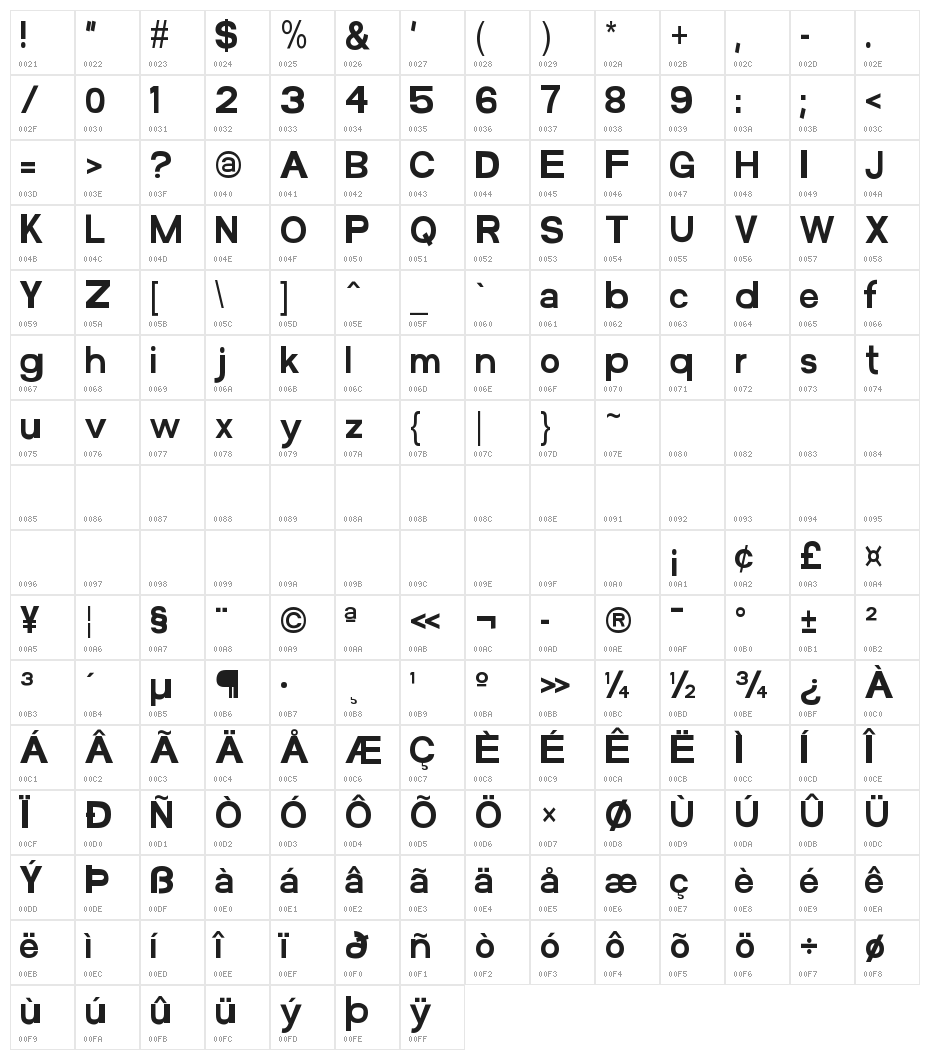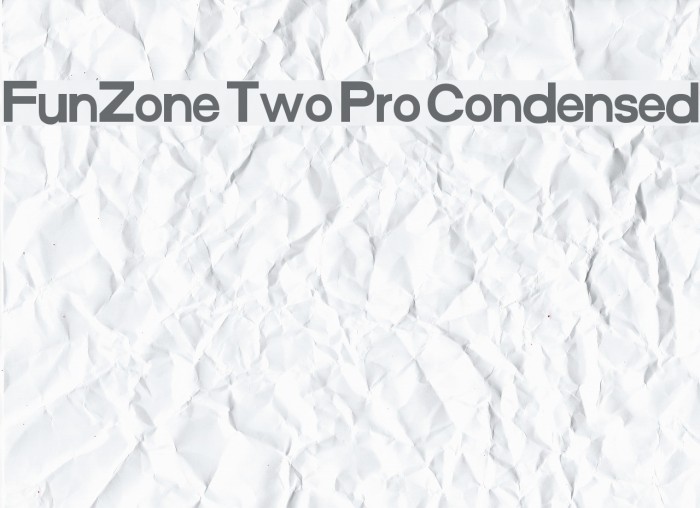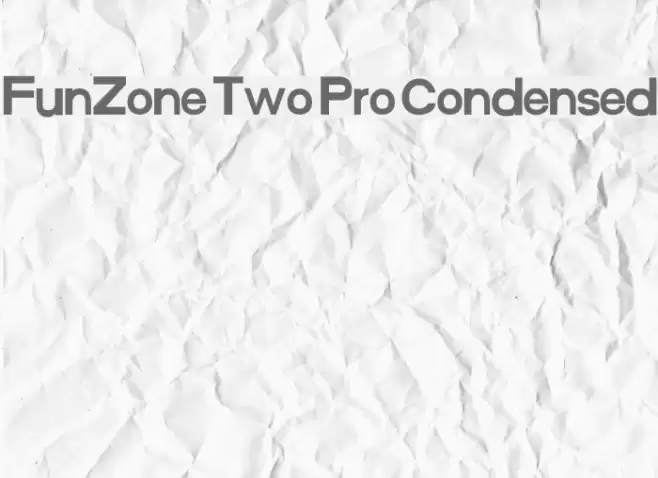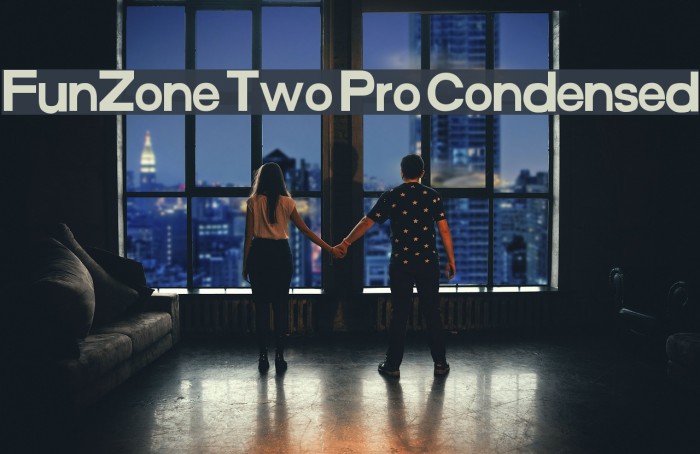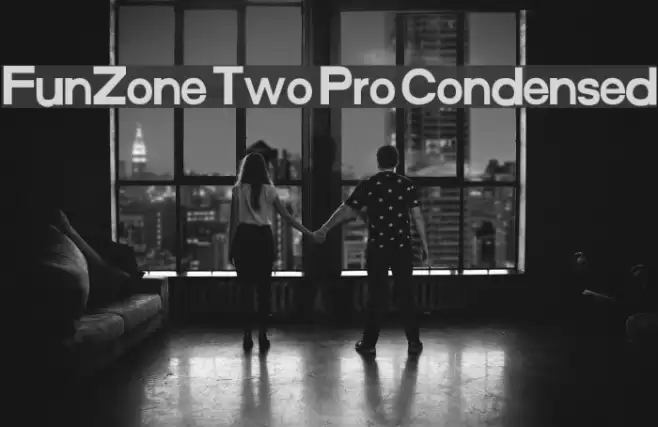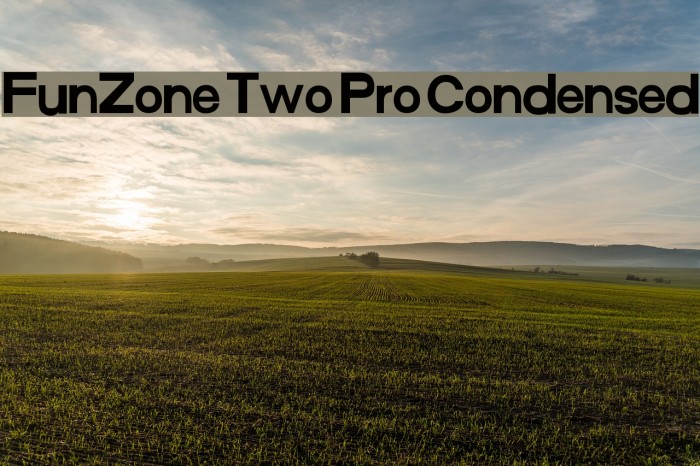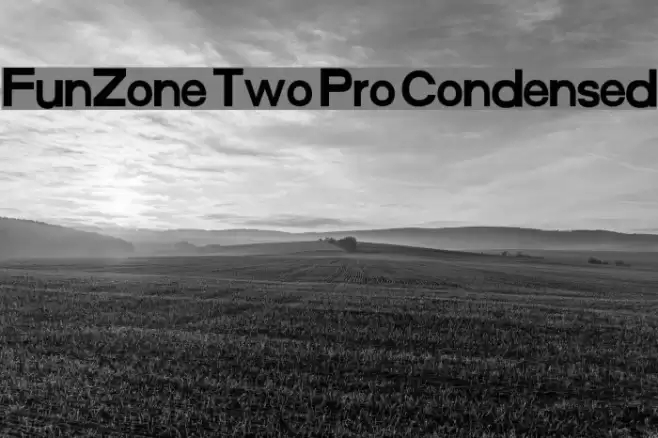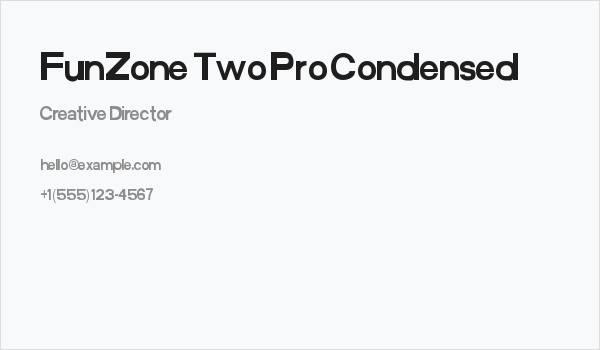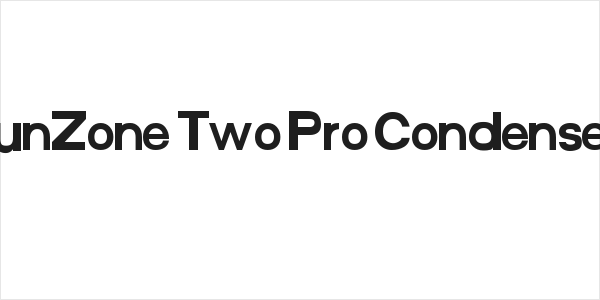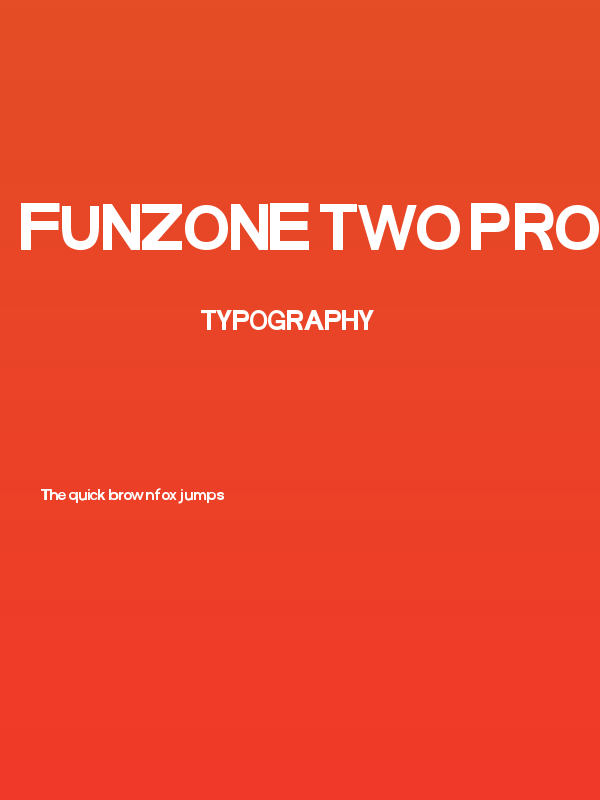
FunZone Two Pro Condensed Font
FunZone Two Pro Condensed Description
This typeface features a bold and modern design with a condensed structure, making it highly effective for creating impactful headlines and titles. The characters are uniformly thick, providing a strong visual presence. The uppercase and lowercase letters maintain a consistent height, contributing to a clean and organized appearance. The numerals are clear and easily distinguishable, while the special characters are designed to complement the overall style. This font's condensed width allows for efficient use of space without sacrificing readability.